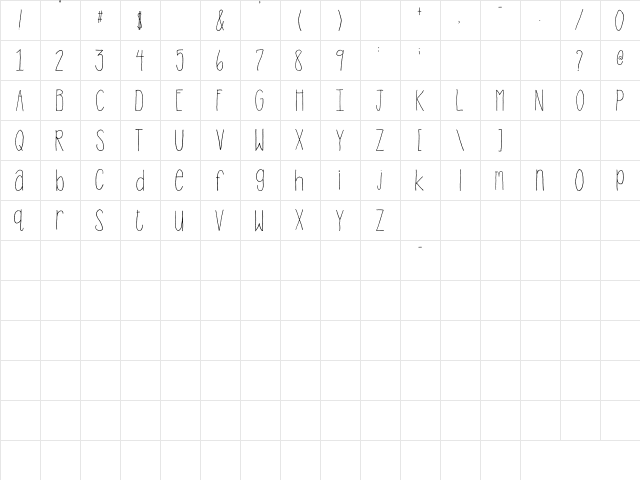
2Peas Stand Tall 2Peas Stand Tall
| Foundry | Two Peas in a Bucket |
| Designer | designed by Melissa Baxter |
Design Context for 2Peas Stand Tall Typeface
2Peas Stand Tall offers clean, dependable letterforms without strong stylistic allegiance, making it a practical choice for designers who need flexibility.